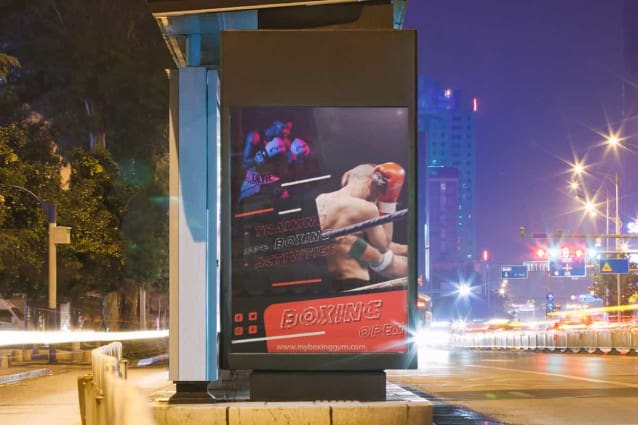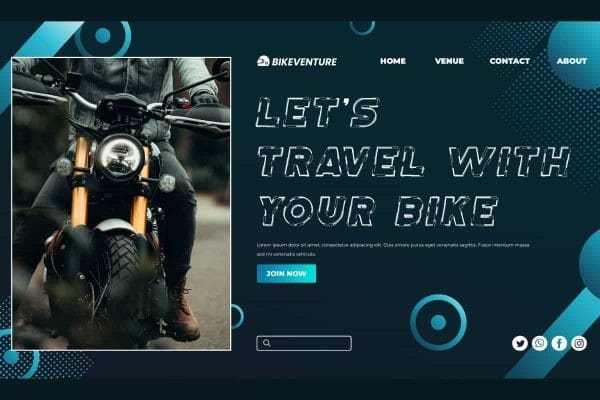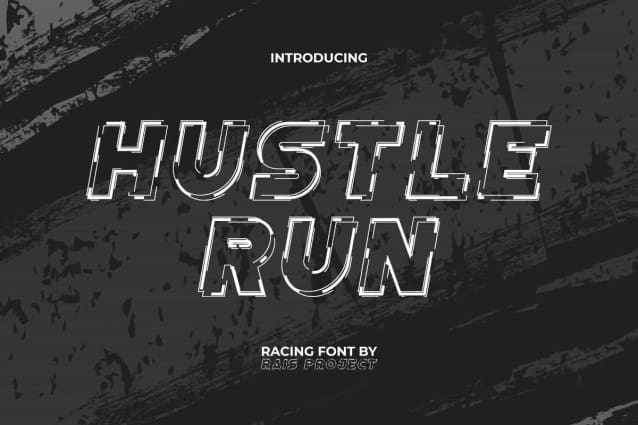
Hustle Run Font
Hustle Run Font is a sporty modern futuristic picturesque racing font by RaisProject. This font is designed with enough detail to create a unique appearance, but is still clearly readable. It will be good for any designs, such as advertisement, brand image, custom design, invitation, label, marketing material, poster, product packaging, quotes, signage, stationery, website page, and more!
Hustle Run Font includes a full set of ALL CAPS for Uppercase and Lowercase Letters, Numerals, and large range of Punctuation. This awesome font will be suitable for various industries, such as automotive, cafes, event or festival, fashion, game, photography, printing, publishing, sports, etc.